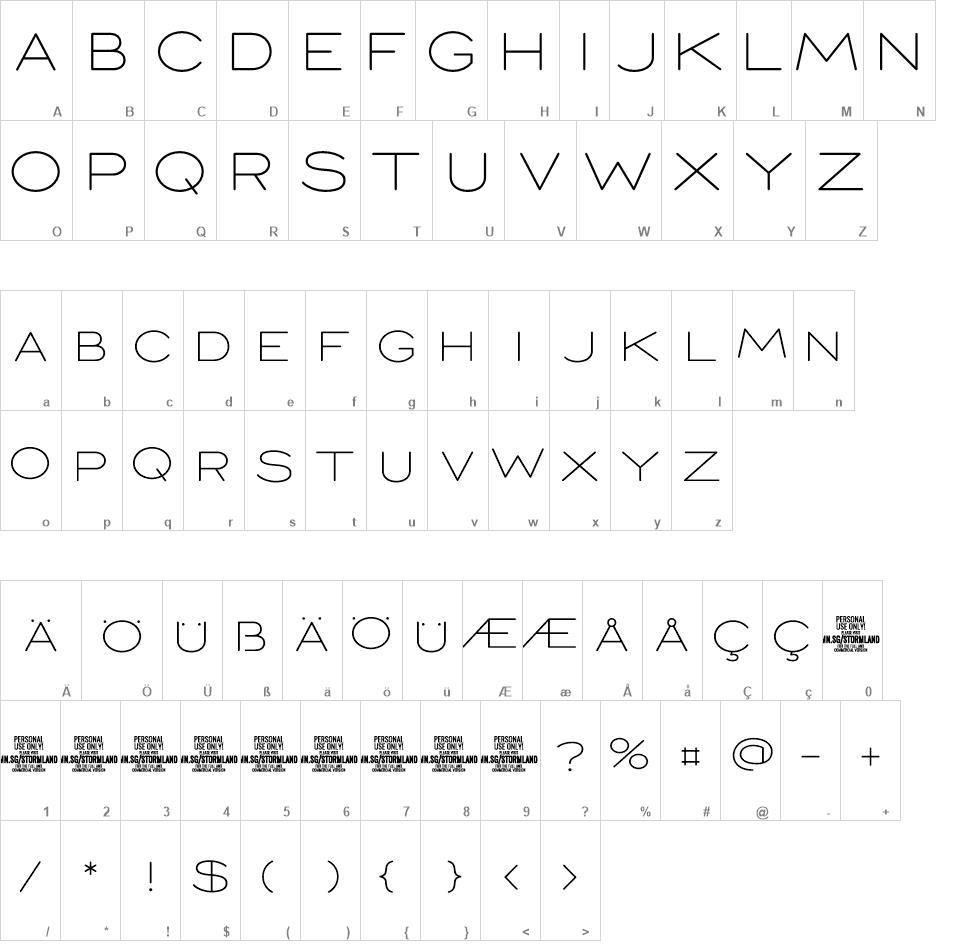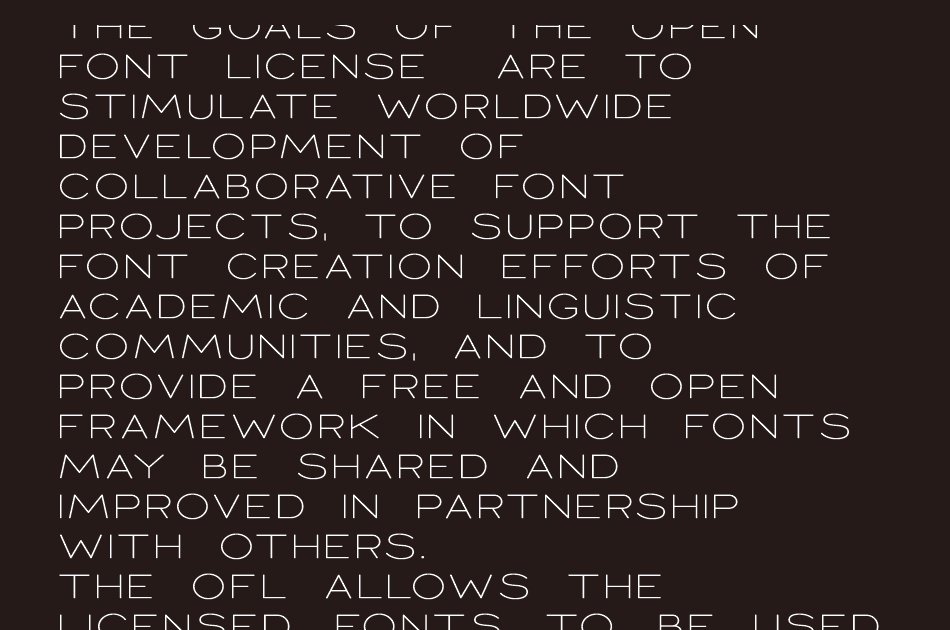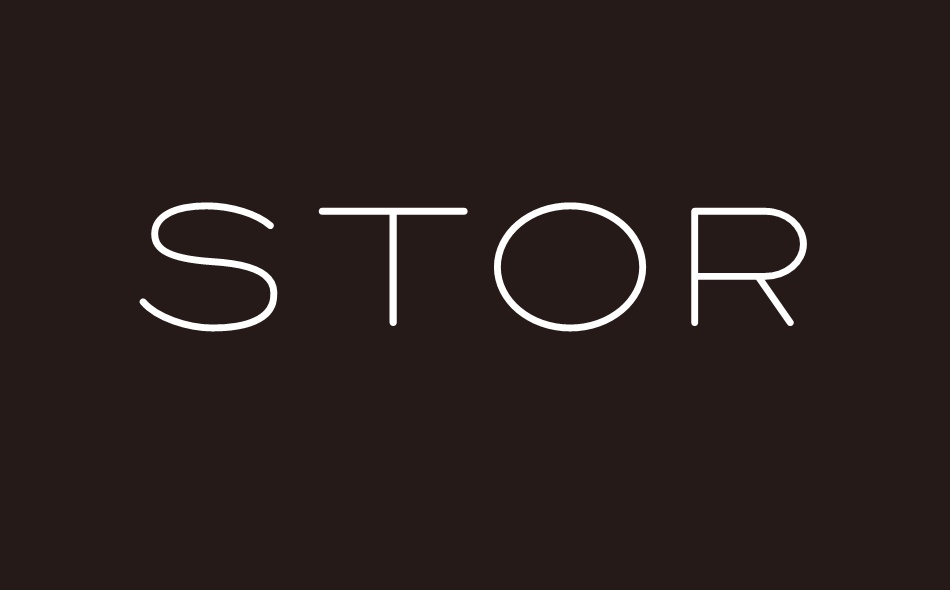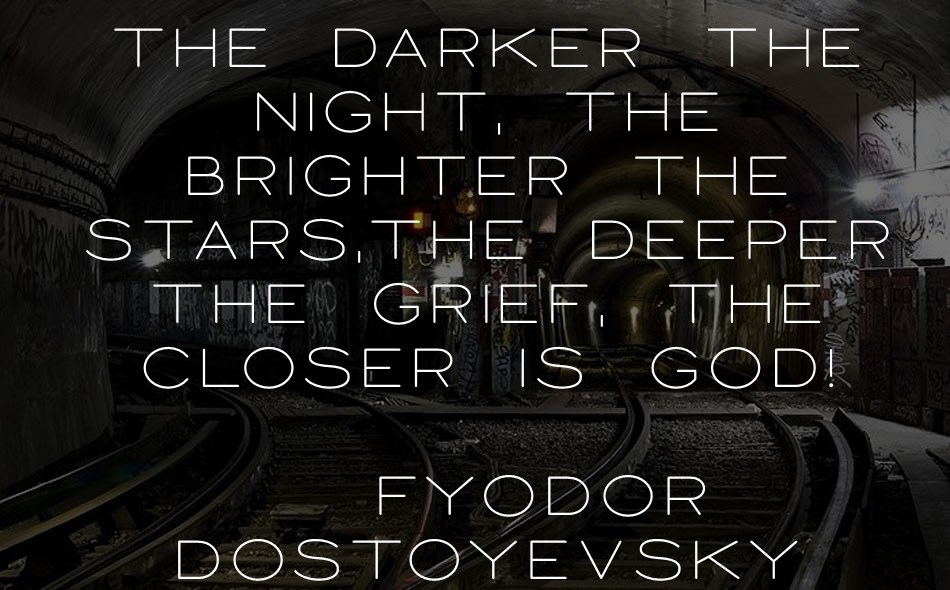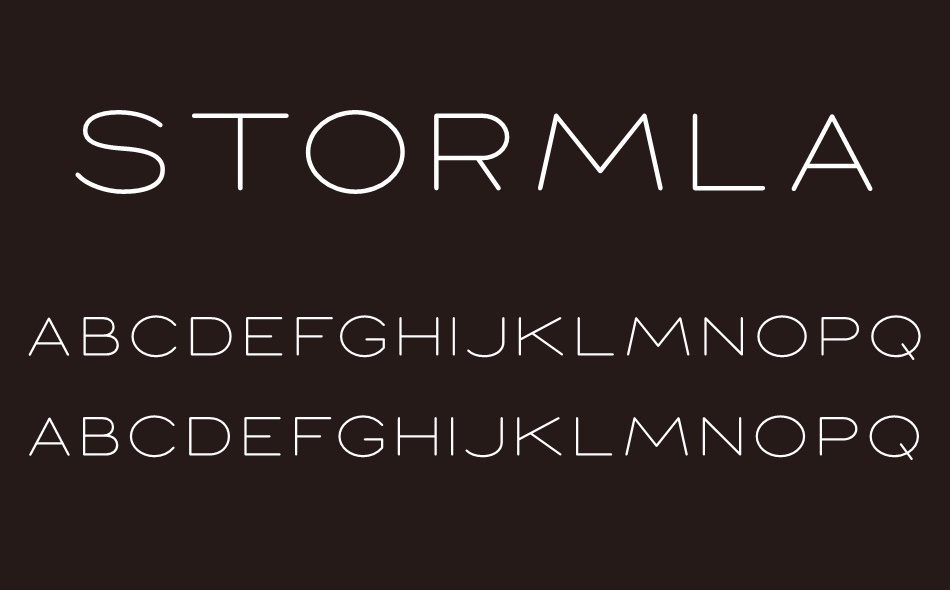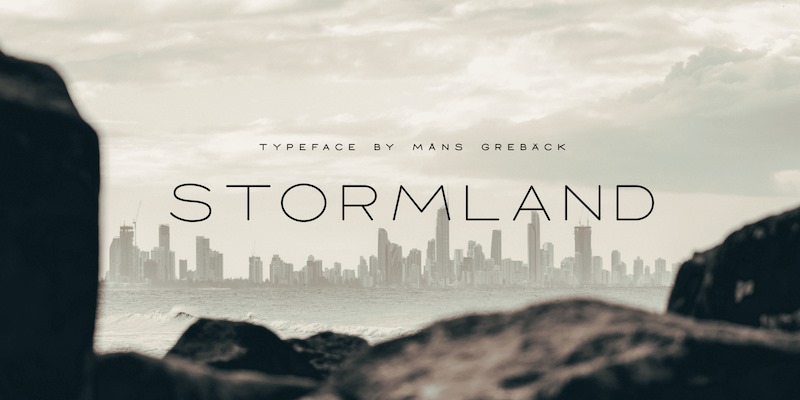
Stormland font
Stormland is a minimalistic sans-serif typeface, drawn and created by Mans Greback in 2021.
In true modern Scandinavian style it is barren and cold, with open spaces and a light appearance.
With wide-bodied letterforms and balanced strokes, this high-quality design is the optimal fit for a clean and classy headline.
Stormland is provided in five distinct weights: Thin, Light, Medium, Bold and Black.
The font is built with advanced OpenType functionality and has a guaranteed top-notch quality, containing stylistic and contextual alternates, ligatures and more features; all to give you full control and customizability. It has extensive lingual support, covering all Latin-based languages, from Nordic to South Africa, from America to South-East Asia. It contains all characters and symbols you'll ever need, including all punctuation and numbers.